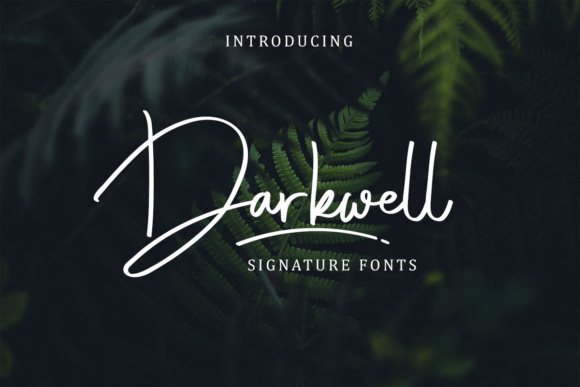
Darkwell Family Font
Unleash the depths of your creativity with the Darkwell Family Font, an enticing script font family poised to cast a spellbinding aura over your designs. Created by the masterminds at Rillatype, this collection of two exceptional fonts, each manifested in three enchanting weights—regular, bold, and italic—is a treasure trove of typographic artistry.
Immerse yourself in the allure of Darkwell Regular, where graceful strokes dance across the page, capturing the essence of elegance and sophistication. Witness the power of Darkwell Bold, where each letter emanates strength and determination, leaving an indelible mark upon the beholder. Then, succumb to the allure of Darkwell Italic, as its sweeping curves and playful inclinations bring a touch of whimsy and charm to any creation.
Whether you're embarking on a branding endeavor or seeking to elevate your background image with a touch of flair, the Darkwell Family Font is your steadfast companion. Let your imagination soar as you craft logos that exude timeless appeal, business cards that command attention, and social media posts that radiate personality. Unleash the boundless potential of this font family and watch your designs blossom into masterpieces.